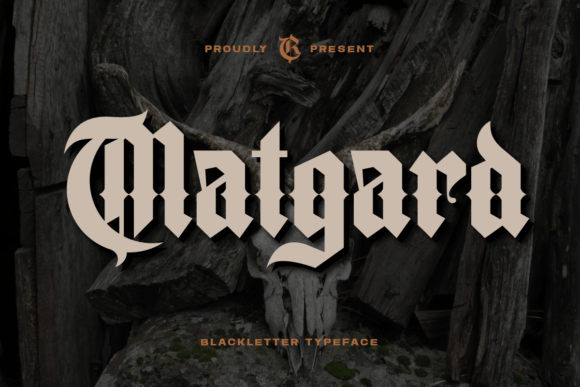
Behold, Matgard, the font that will transport your designs to a realm of distinction and charm. Inspired by the allure of vintage aesthetics, this blackletter typeface will infuse your creative endeavors with a touch of timeless elegance.
Adorned with bold strokes and a captivating contrast, Matgard stands as a testament to the enduring beauty of old-world typography. Let your imagination soar as you harness the power of Matgard to craft titles that command attention, design flyers that exude a sense of nostalgia, and create greeting cards that radiate warmth and personality.
With Matgard as your trusted companion, you can transform ordinary packaging into works of art, inviting your customers to embark on a journey through time. The font's intricate details and timeless appeal are perfectly suited for adorning book covers, ensuring that your literary masterpieces leave an indelible mark on the minds of readers.
Unleash your creativity and explore the boundless possibilities that Matgard presents. From printed quotes that inspire and uplift to logotypes that embody a rich heritage, this font will elevate your designs to new heights of sophistication. Elevate your clothing designs with an air of authenticity, or let Matgard be the cornerstone of your branding efforts, creating a visual identity that resonates with your audience.
Picture the allure of an album cover adorned with Matgard's distinctive glyphs, inviting music lovers to delve into a world of captivating melodies and heartfelt lyrics. The font's undeniable charm will captivate their attention, leaving them yearning for more.
Embark on a creative odyssey with Matgard, allowing this font to ignite your passion and guide you toward masterpieces that transcend the boundaries of time. Let your designs speak volumes, whispering tales of eras past and captivating hearts with their timeless allure.